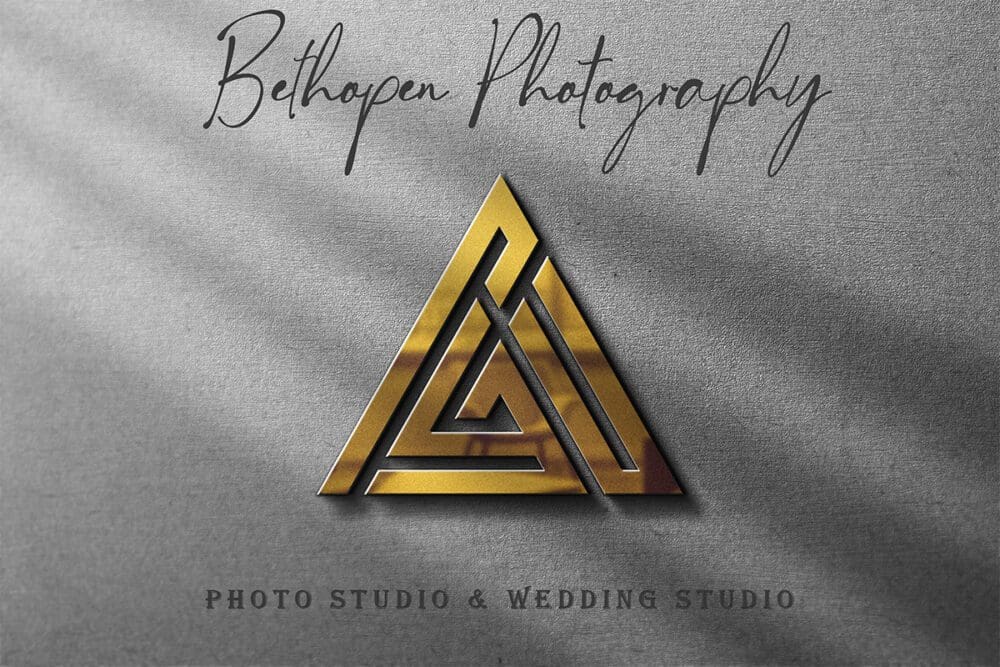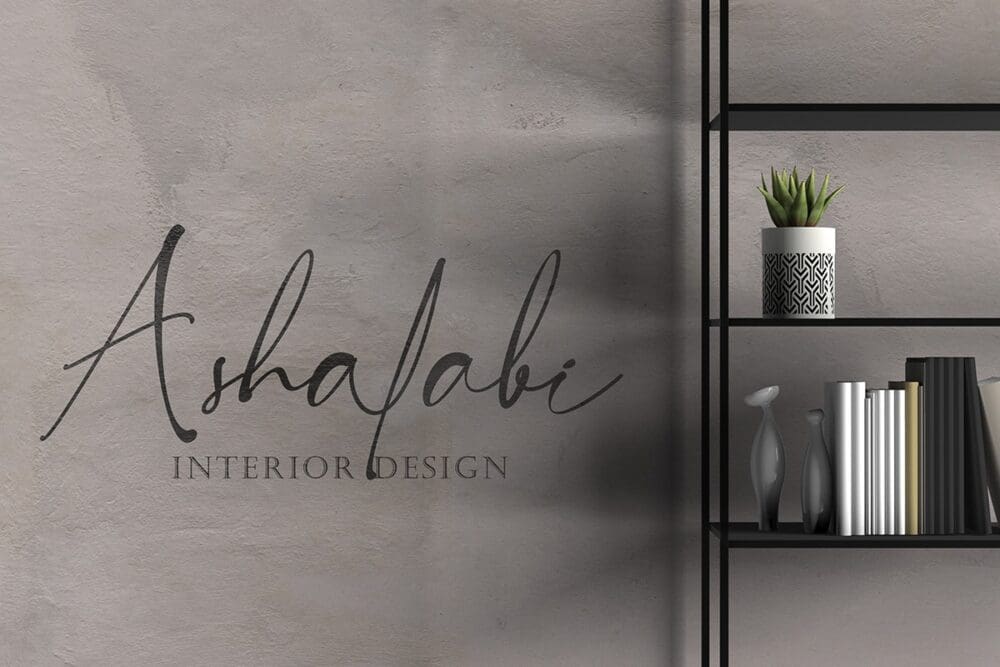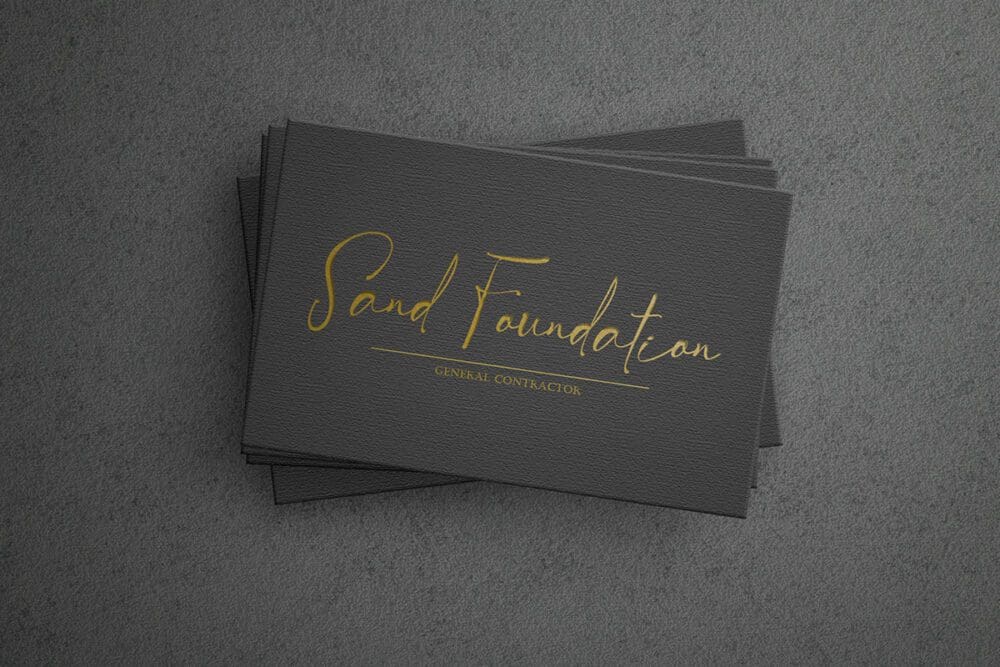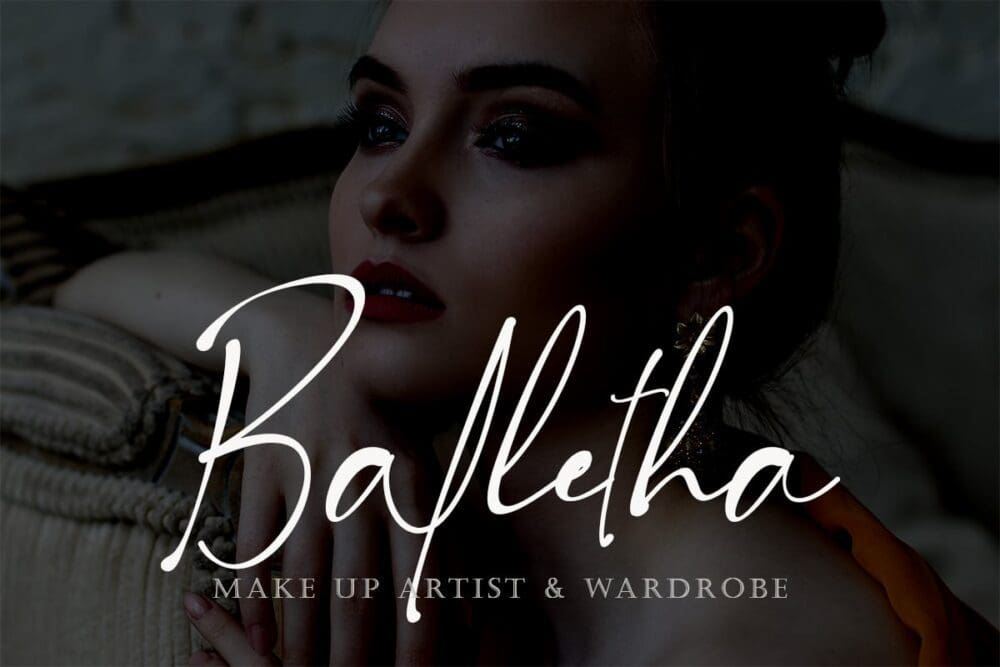
Royal Signature Font
Royal Signature is a lovely and delicate script font that exudes elegance and class. This font was particularly crafted for those who need a beautiful and refreshing look to their designs.